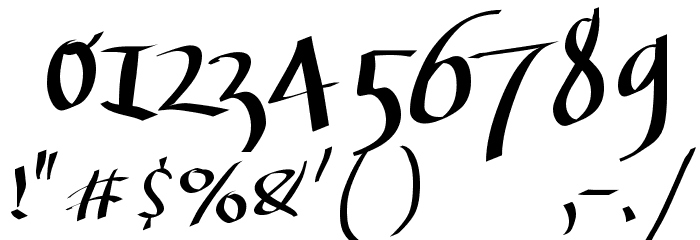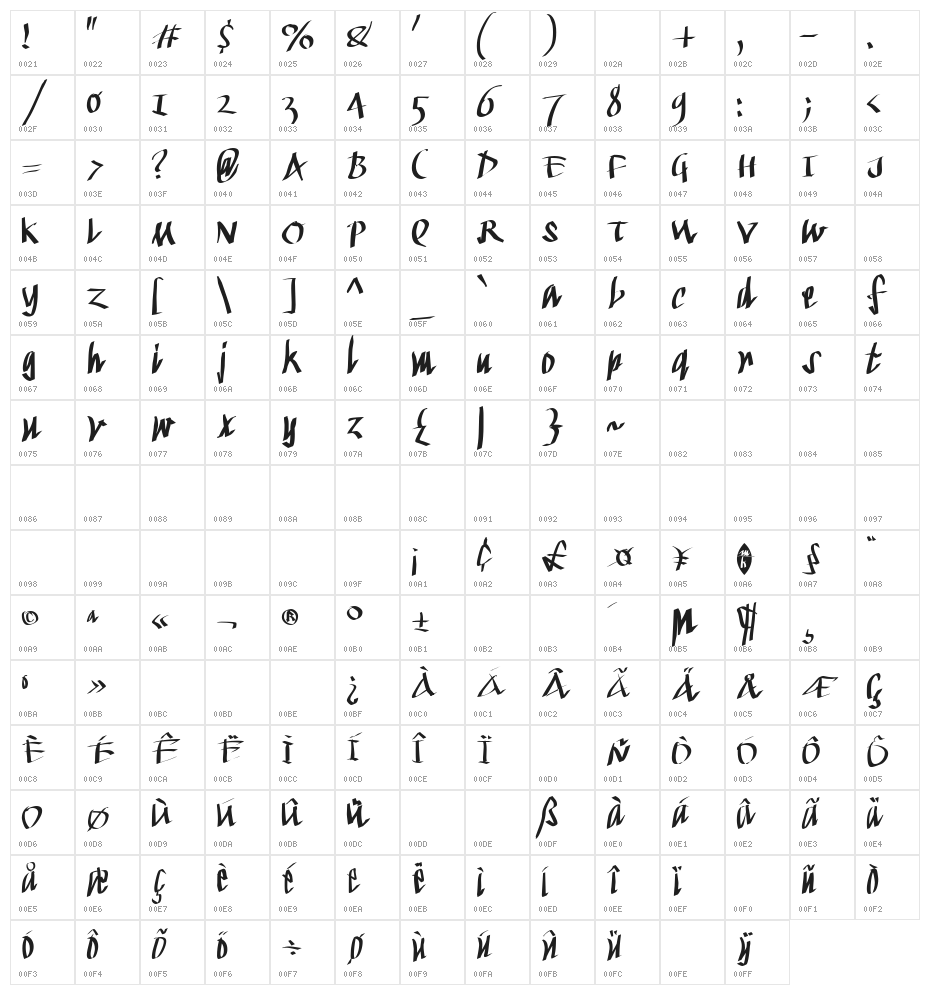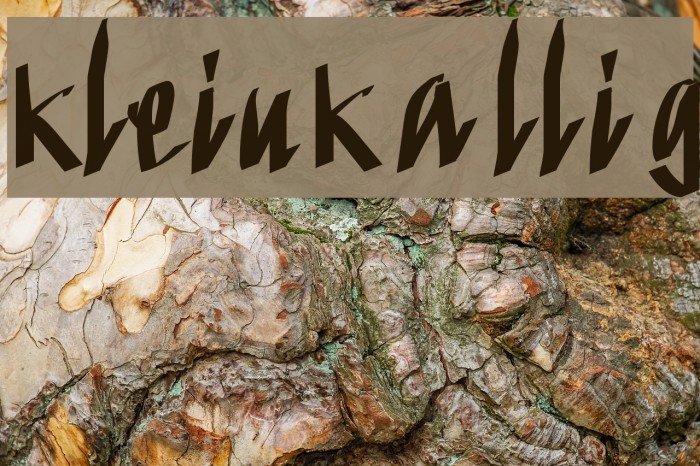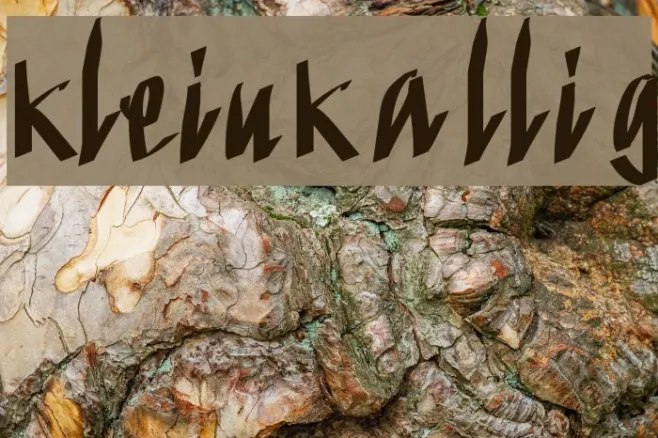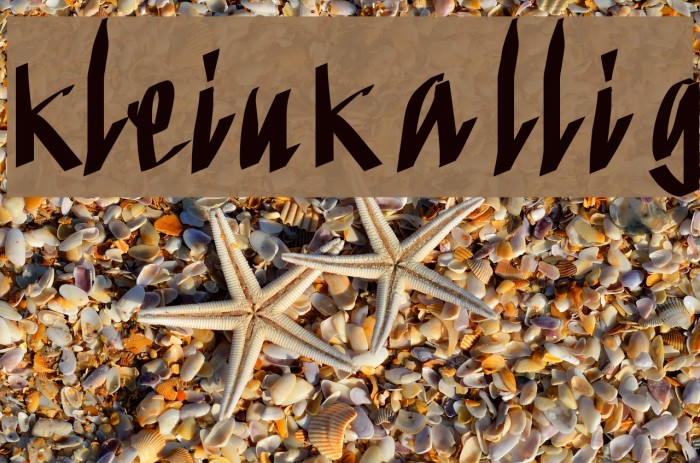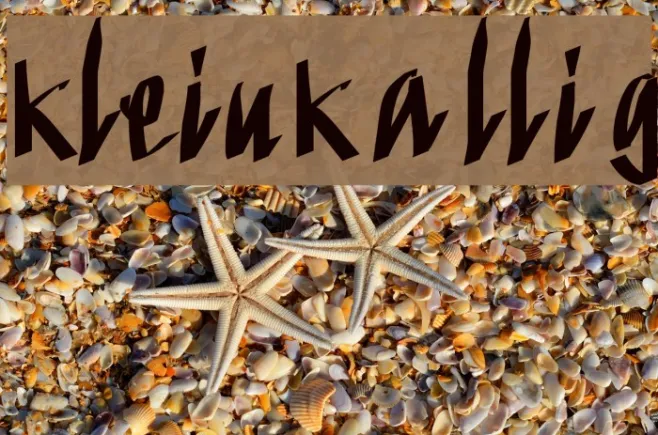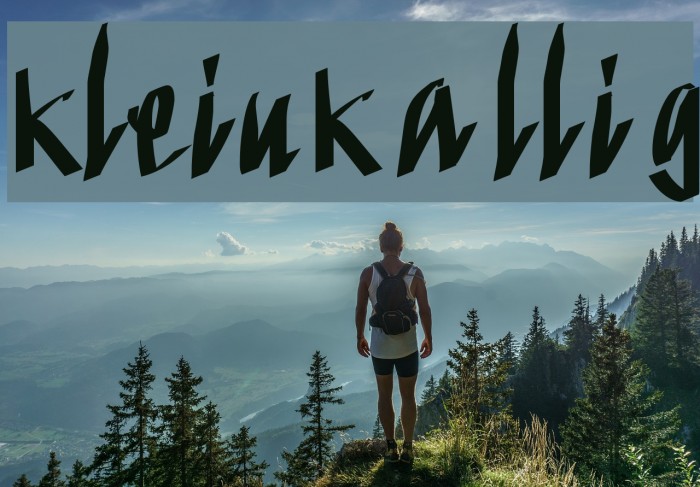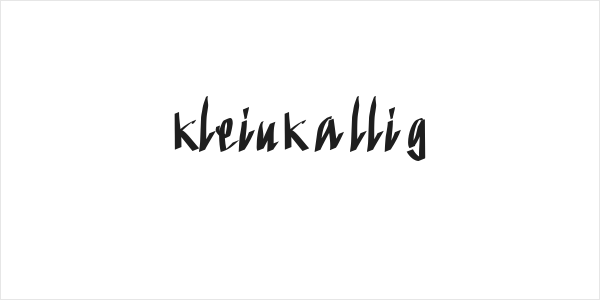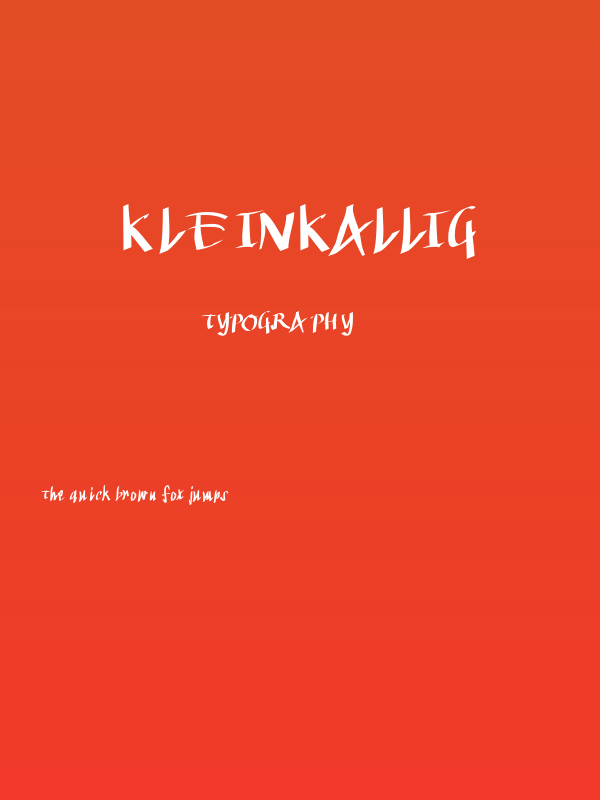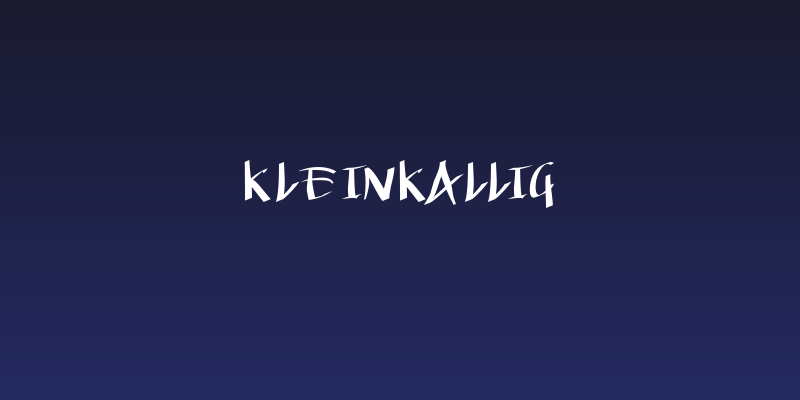
KleinKallig Font
KleinKallig Description
This font features a dynamic and expressive style, reminiscent of traditional calligraphy with a modern twist. The characters exhibit sharp, angular strokes and a sense of movement, creating a bold and artistic appearance. The uppercase letters are particularly striking, with exaggerated curves and a sense of drama. The lowercase letters maintain the same energetic style, offering a cohesive look throughout. Numbers and special characters are designed with the same attention to detail, ensuring consistency across all elements. This font is ideal for projects that require a touch of elegance and flair, making it suitable for creative and artistic applications.